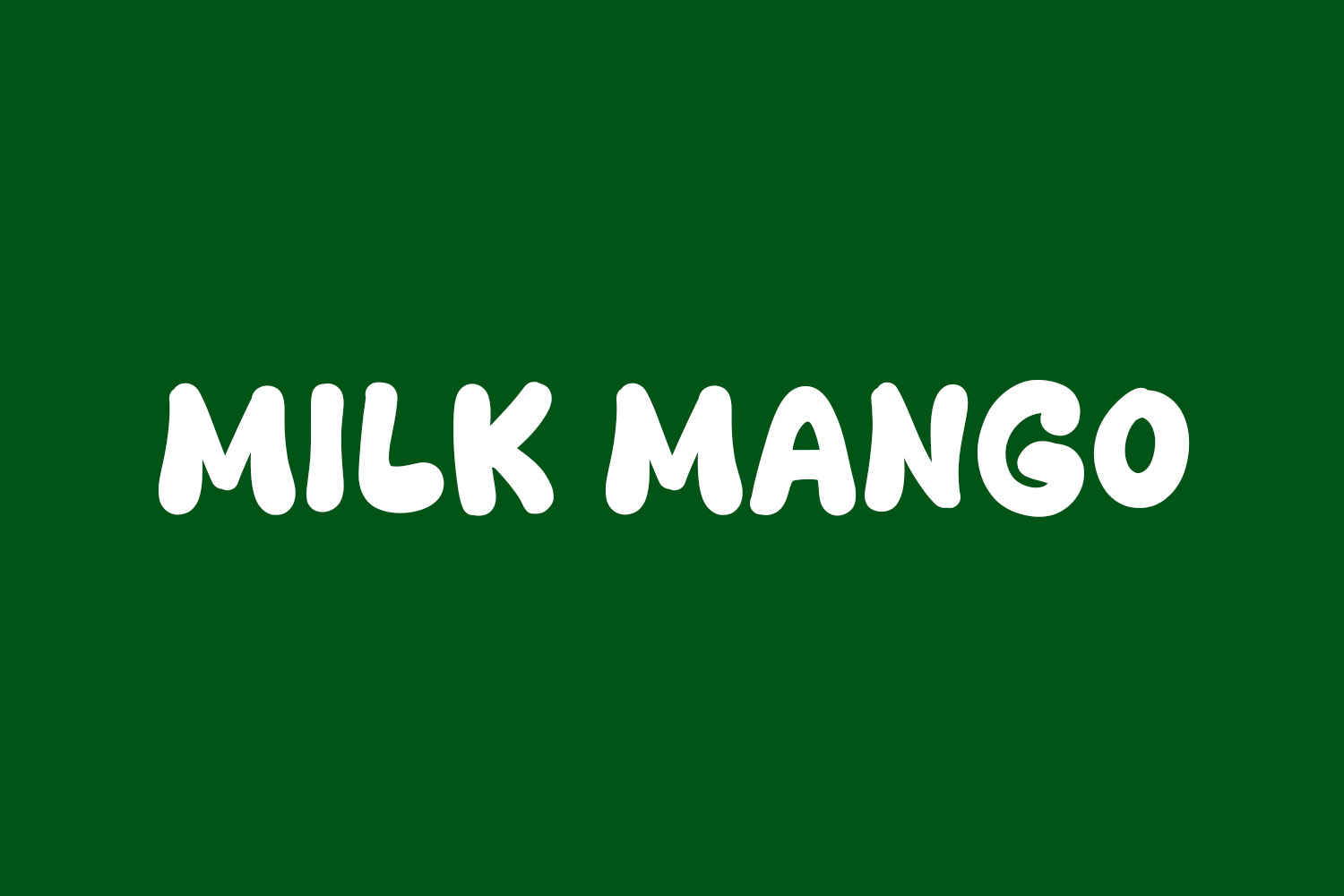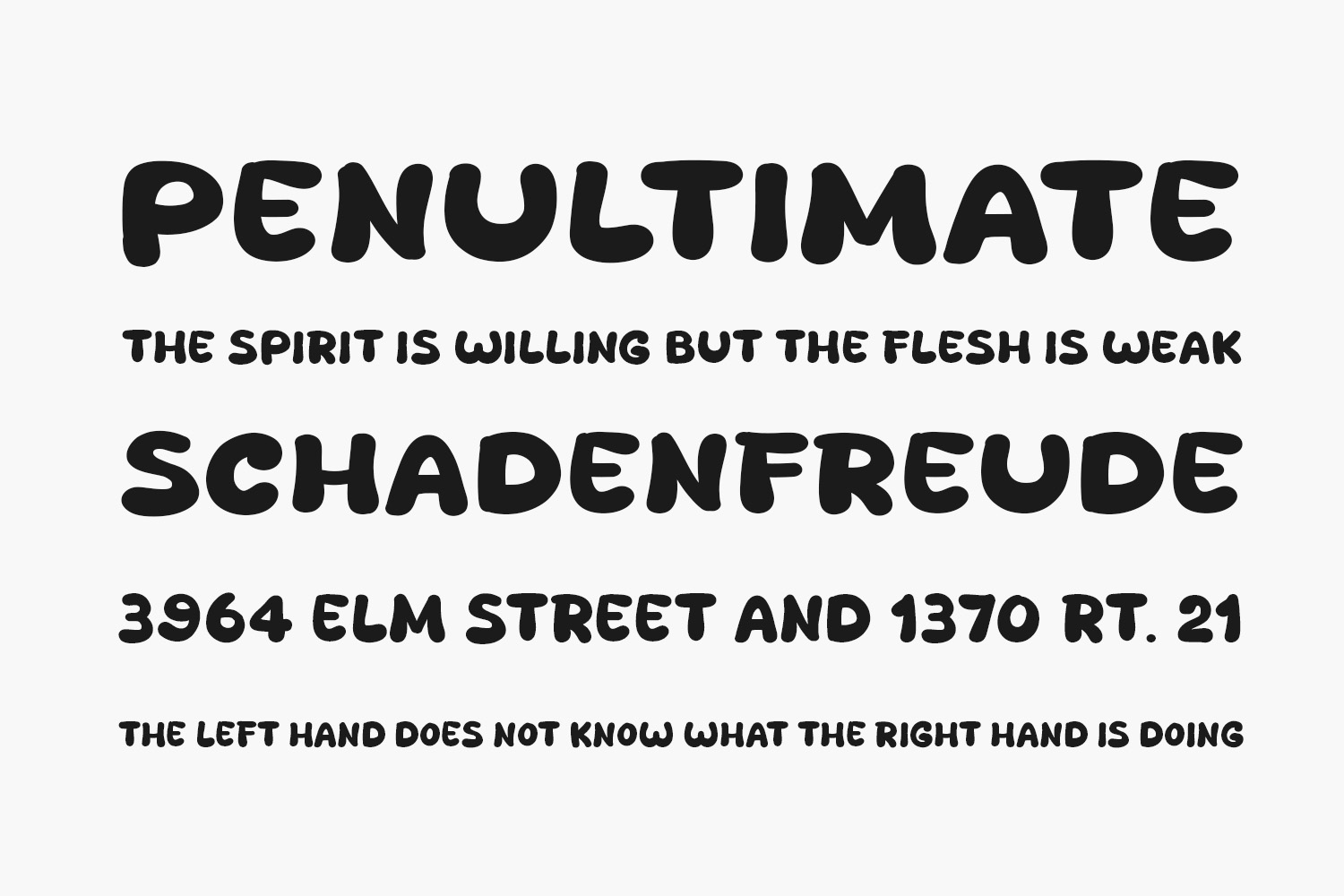
Discover the contemporary elegance of Milk Mango Free Font, an exquisite display font designed to elevate your posters, logos, magazines, book covers, banners, and beyond! Unlock the potential of this incredible font to craft enchanting designs that seamlessly complement a vast array of projects. Integrate Milk Mango into your creative repertoire and witness how it effortlessly enhances your ideas, making them truly distinctive. Milk Mango Free Font is free for personal use only. Please purchase the full version for commercial use.